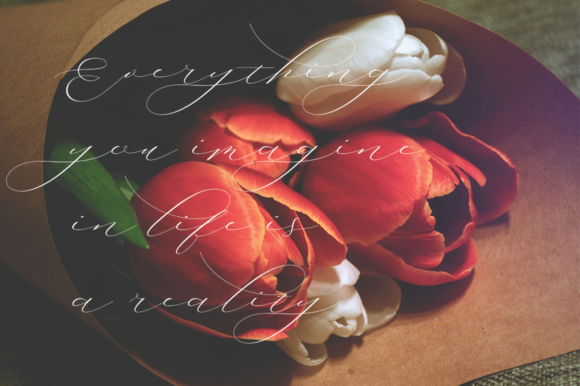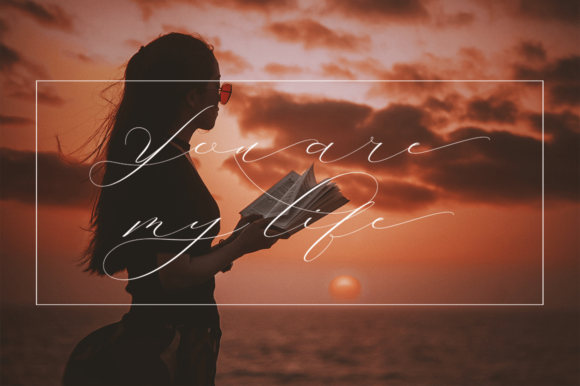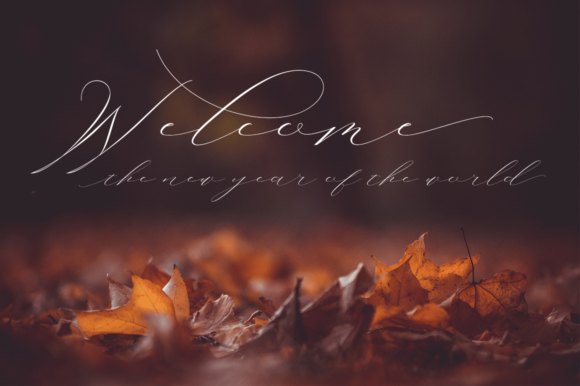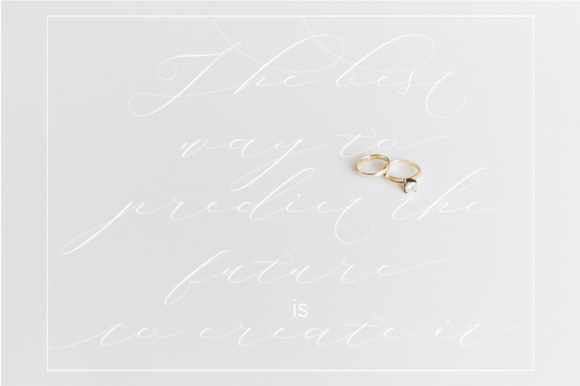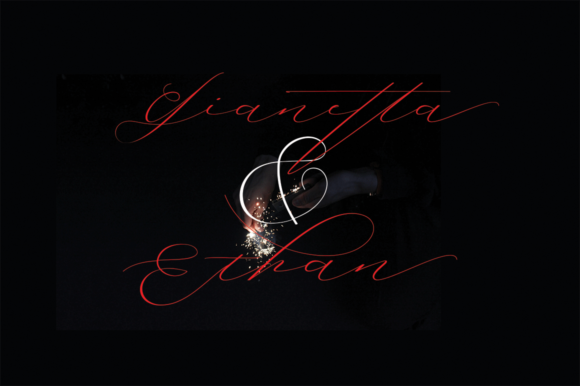
The Perfect Blend of Style and Character
Have you ever found yourself staring at a blank page, searching for the perfect font to bring your design to life? It’s that moment of creative paralysis, when every font seems to fall short of your vision. For designers, this is a familiar feeling – and one that Gianetta Font is designed to alleviate. This charming, modern calligraphy font is perfect for adding a touch of elegance to invitations, signatures, blogs, social media, business cards, and more.
With its natural characteristics and effortless charm, Gianetta Font is a valuable asset for any designer looking to add a personal touch to their work. Whether you’re creating a wedding invitation or a social media campaign, Gianetta Font is sure to bring a unique and captivating flair to your designs.
Gianetta Font Key Features
- Unique Characteristics: The font features a unique, elegant script style with intricate details and flourishes, making it perfect for creative and artistic applications.
- Language Support: Gianetta Font supports a wide range of languages, including Latin-based languages, Cyrillic, and Greek, making it a versatile choice for global designs.
- Font Weight: The font is available in a single weight, but its elegant script style gives it a range of visual weights, allowing designers to create a variety of moods and effects.
Gianetta Font Review
Gianetta Font is a beautiful and elegant script font that I had the pleasure of working with. Here are my thoughts on this lovely font.
- The elegant and refined look of the font makes it perfect for formal invitations, wedding stationery, and luxury branding.
- The variety of weights and styles available allows for a high level of customization and flexibility in design projects.
- The font’s legibility is excellent, making it easy to read even at smaller font sizes.
- The subtle flourishes and ornaments add a touch of sophistication and whimsy to designs.
- The font may be too ornate for some designs, particularly those that require a more modern or minimalist aesthetic.
- The font’s intricate details may not be suitable for very small font sizes or low-resolution displays.
- The font’s weight and style options may not be enough for some designers who prefer a wider range of customization options.
Overall, Gianetta Font is a beautiful and elegant script font that excels in formal and luxury design projects. While it may have some limitations, its unique style and high level of customization make it a great choice for designers looking to add a touch of sophistication to their designs.
Playfair Display is an elegant and luxurious serif font, suitable for use in headings and titles. It’s perfect for creating a sophisticated and high-end look. Compared to Gianetta Font, Playfair Display has a more formal and traditional feel, while Gianetta Font is more playful and vintage-inspired.
Does the Gianetta font family include any special features or OpenType features?
Yes, the Gianetta font family includes a range of special features and OpenType features, including ligatures, swashes, and contextual alternates. These features can be accessed using a font editor or by using a word processor that supports OpenType features. Please note that not all features may be supported in all applications.